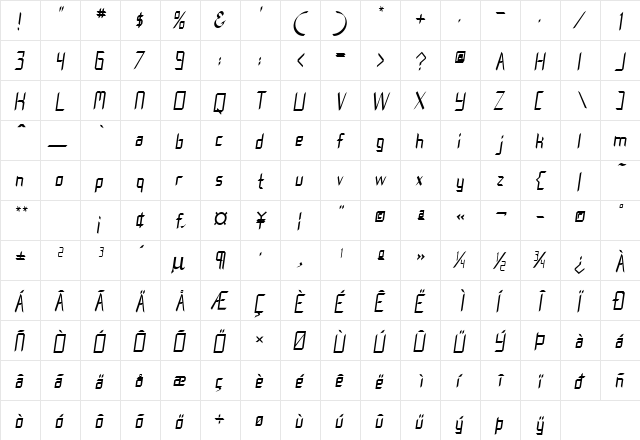
Leapfrog Oblique
Design Context for Leapfrog Typeface
Leapfrog is a composed and adaptable typeface that performs quietly and consistently across a wide range of design contexts. Its italic angle brings a sense of urgency and motion to the letterforms.
Pro Tip: Try Leapfrog for annotation and caption copy alongside an upright companion — the contrast in angle creates a dynamic but ordered typographic system.